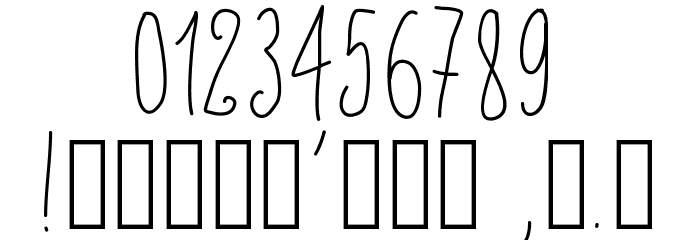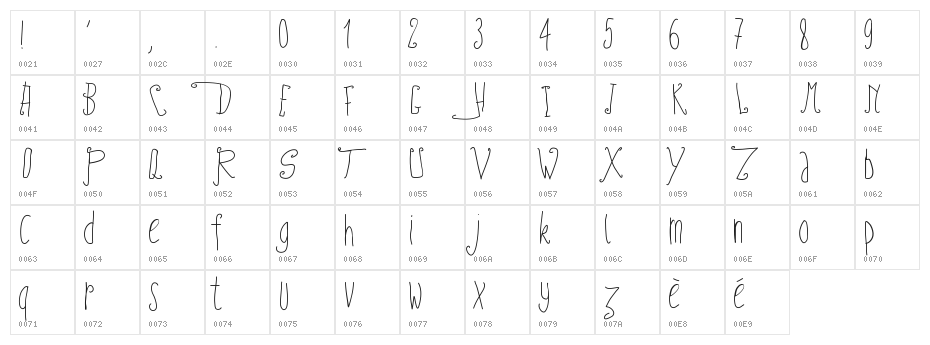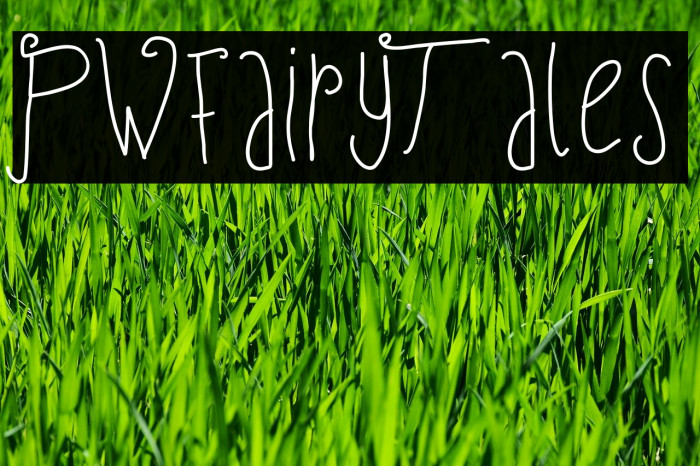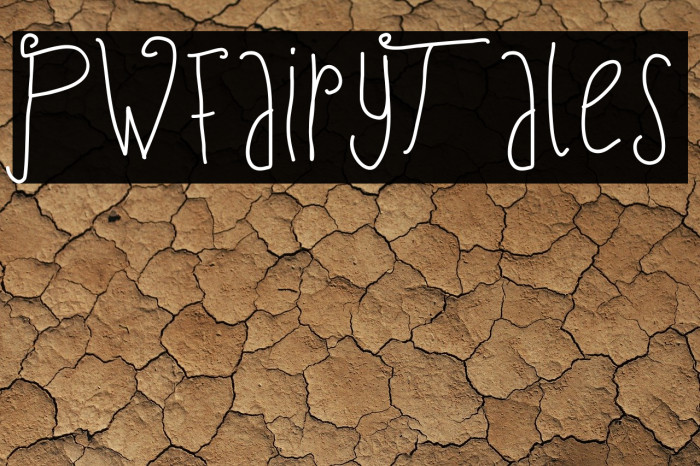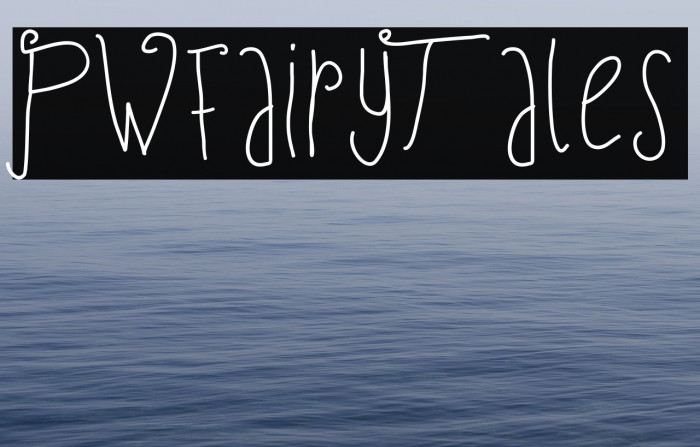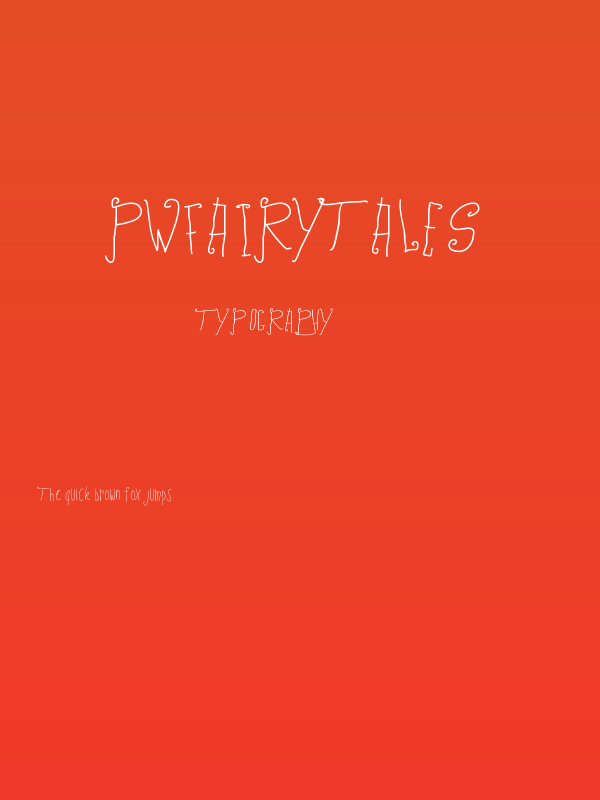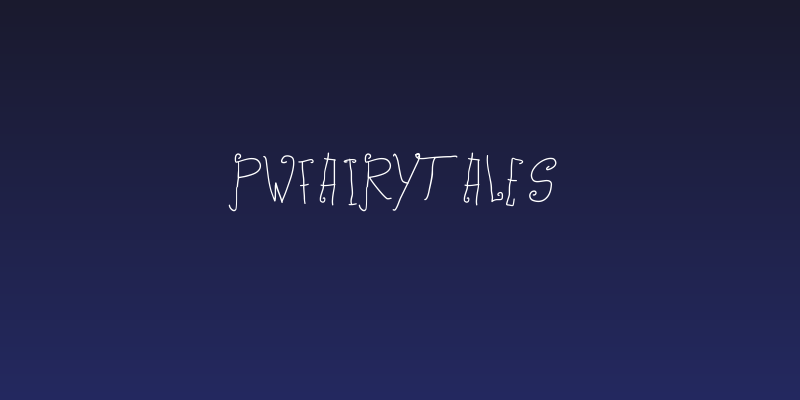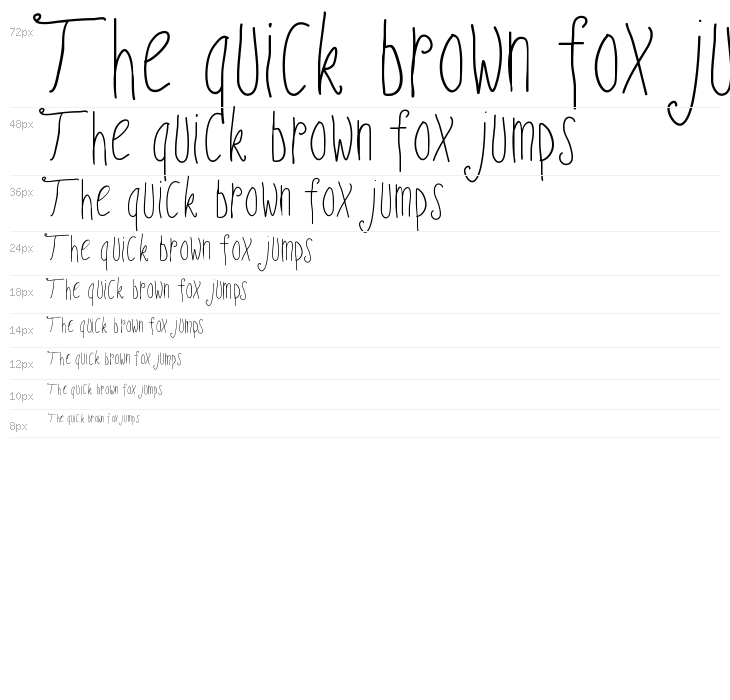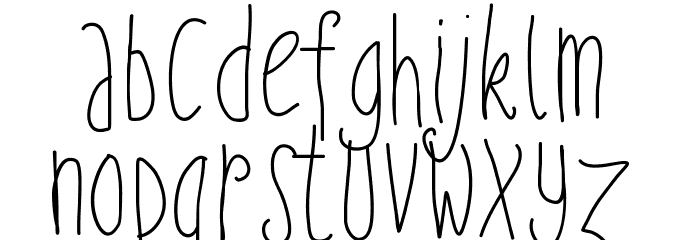
PWFairyTales Font
PWFairyTales Description
This whimsical font features a playful and enchanting design, reminiscent of fairy tales and magical stories. The characters are tall and slender, with unique curls and loops that add a touch of fantasy. The uppercase letters have an elegant, elongated form, while the lowercase letters maintain a consistent style with a slightly more compact appearance. The numbers and special characters follow the same enchanting theme, making the font suitable for creative and imaginative projects. The overall design is light and airy, with a hand-drawn feel that adds to its charm.
| Overall Style | Whimsical |
| Proposed Projects | Ideal for children's books, fantasy-themed invitations, whimsical branding, and creative posters. |